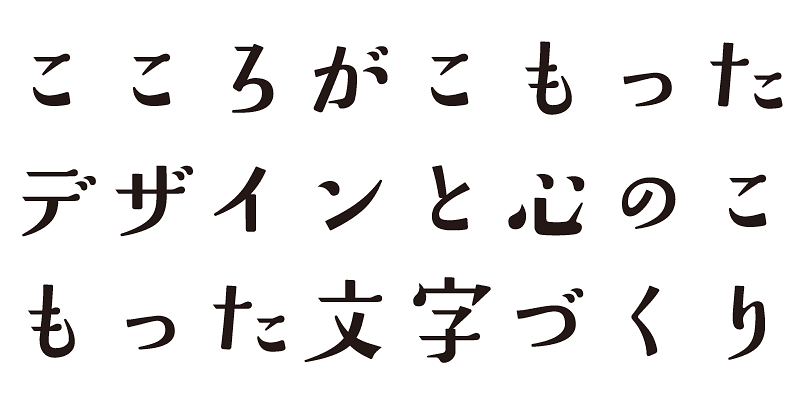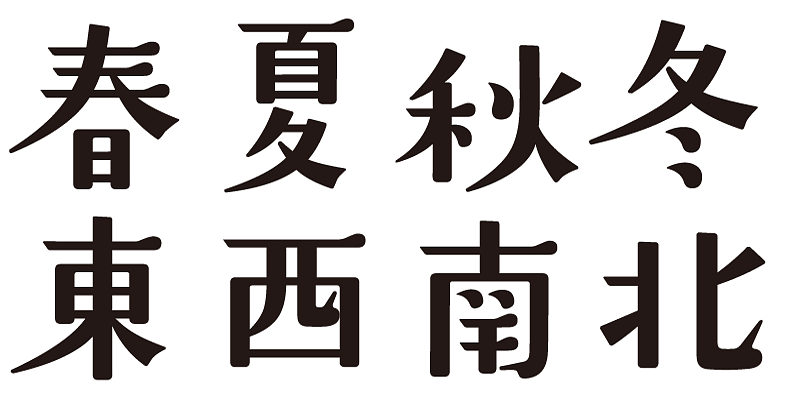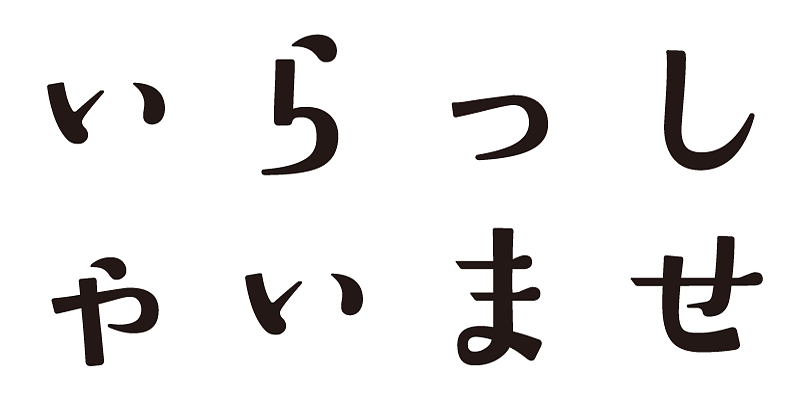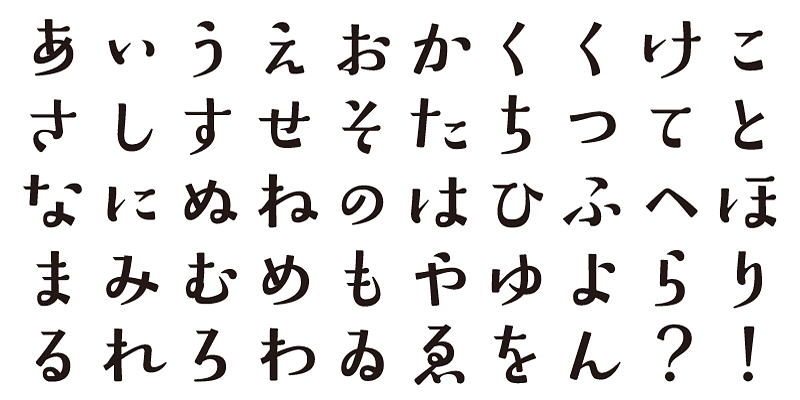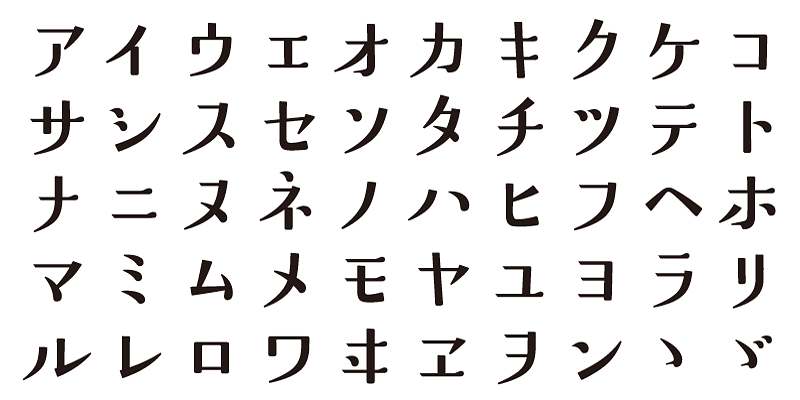
This is a Mincho-style design that gives the impresson of light, graceful movement - a typeface with a slightly bustling and adventurous atmosphere.
Each font in this typeface family includes 1,000 kanji characters, as well as hiragana, katakana, alphanumeric characters, and punctuation marks.
We design typefaces with the hope that they will add underlying meaning to words expressed. We wish the user to feel good and experience comfort and joy when using these typefaces.